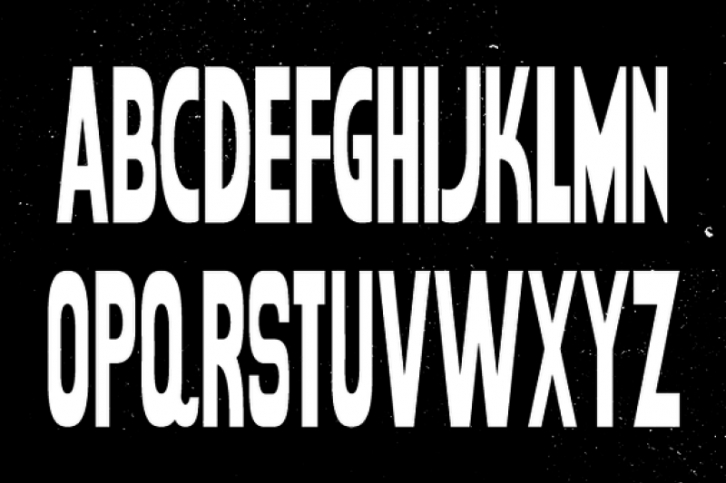
A TYPEFACE ONLY A MOTHER COULD LOVE / Rude! I think I’m rather handsome.
• Templeton / Me on a Friday Night
• Templeton Clean / Me on a Sunday Morning
THE FACT / Who I Am
Salutations! These immensely beautiful letter were based on me, Templeton! Perhaps you’ve heard of me from my work in Charolette’s Web. This font replicates the unique character of late 1800’s traveling circus poster typography. It’s intended to be big and bold, but chock full of character (and cheeseburgers).
THE FICTION / Where I Live
Let me tell you a little about my favorite place: The Circus. It closes at 10PM tonight, so I gotta go soon. It’s my time to roam the grounds. Most people don’t know, but for a rat, the fair is a smorgasbord of hotdogs, cookie crumbs, rotten cotton candy, melted ice cream, mustard drippings and, moldy goodies. All mine for the taking.
THE FONT / What I Do
Trust me, this font will get the job done. Drop it on a sticker or a shirt, or toss it big and bold on a sign or poster. I don’t like to brag, but these letters can do pretty much anything.